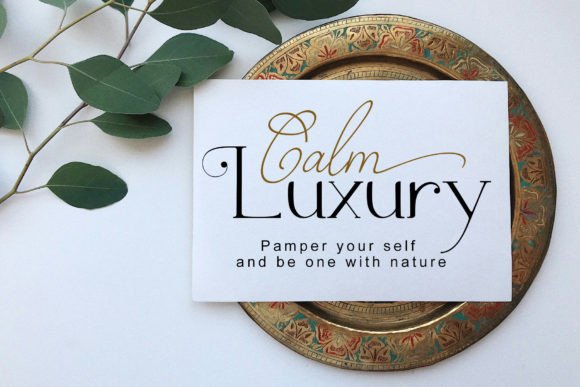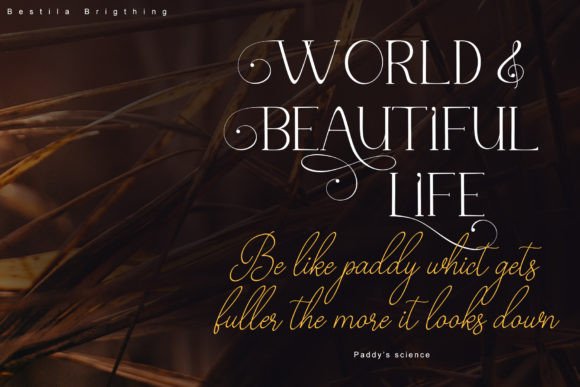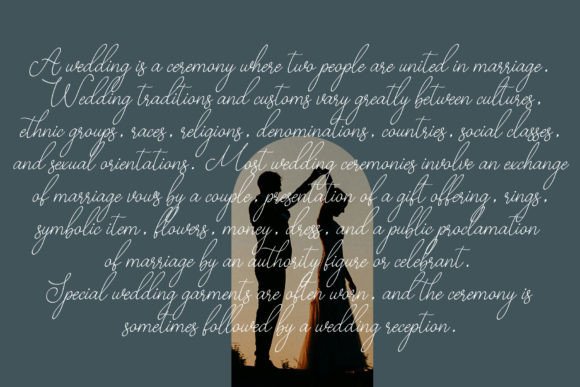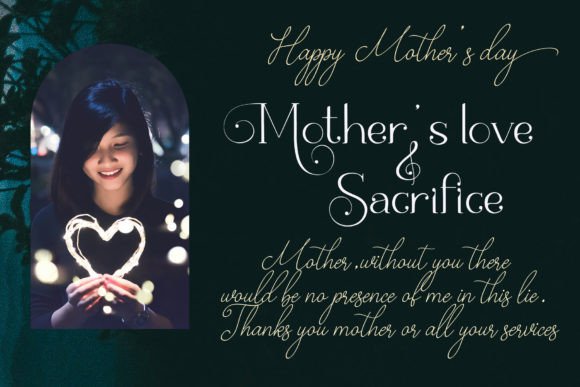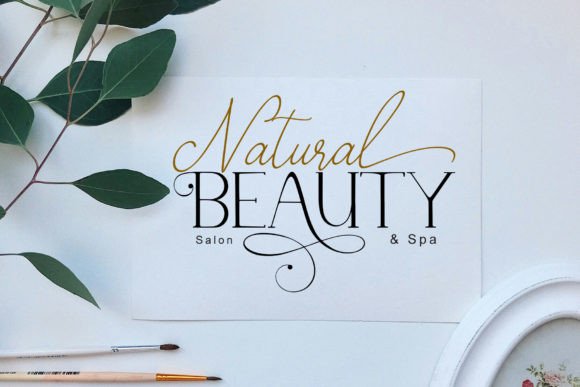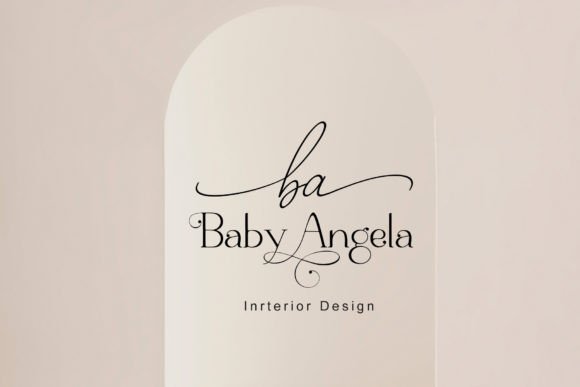
Elevate Your Designs with Bestiela Brigthing: The Ultimate Font Duo
Are you on the hunt for the perfect font to add a touch of elegance and sophistication to your designs? Look no further than Bestiela Brigthing, a stunning duo of fonts that combines the charm of handwritten script with the timeless appeal of classic typefaces. In this article, we’ll dive into the world of Bestiela Brigthing and explore what makes these fonts a must-have for designers, crafters, and anyone looking to elevate their visual creations.
Introducing Bestiela Brigthing-Two: A Perfect Blend of Style and Elegance
Bestiela Brigthing-Two is not just a font; it’s a design experience. This remarkable duo comprises two distinct fonts that, together, offer an unparalleled level of versatility and style. The first font is a beautiful, handwritten script that exudes warmth and personality. Its natural texture and decorative swashes at the beginning and end of lowercase letters add a touch of whimsy and flair to any design. The second font is an elegant typeface that brings a sense of sophistication and luxury to the table. With multiple alternative characters, such as M.1 to M.5, designers have the freedom to experiment and create unique visual identities.
Unleash Your Creativity with Endless Design Possibilities
One of the standout features of Bestiela Brigthing-Two is its incredible versatility. These fonts are perfect for a wide range of design projects, from wedding invitations and greeting cards to logos, branding, and beyond. Whether you’re a professional designer or a crafty DIY enthusiast, Bestiela Brigthing-Two offers the tools you need to bring your vision to life. The fonts’ extensive character set, which includes uppercase and lowercase letters, numbers, punctuation marks, swashes, alternates, ligatures, and support for various languages, ensures that you have everything you need to create stunning designs.
What Sets Bestiela Brigthing-Two Apart?
- Handwritten Charm: The handwritten font features a natural, organic texture that adds a personal touch to your designs.
- Elegant Typeface: The classic typeface offers a sophisticated and luxurious feel, perfect for high-end branding and designs.
- Decorative Swashes: The handwritten font includes decorative swashes at the beginning and end of lowercase letters, adding an extra layer of elegance.
- Multiple Alternative Characters: The elegant typeface offers multiple alternative characters, allowing for endless design possibilities.
Bestiela Brigthing-Two is designed with both designers and crafters in mind. The fonts are incredibly easy to use, with a user-friendly interface that makes it simple to navigate and access the characters you need. Whether you’re creating a professional brand identity or a personal craft project, Bestiela Brigthing-Two offers the perfect combination of style, elegance, and versatility.
Why Choose Bestiela Brigthing-Two?
In a world where design trends come and go, Bestiela Brigthing-Two stands the test of time. These fonts are not just a passing fad; they’re a timeless investment in your design future. With Bestiela Brigthing-Two, you can:
- Create stunning, professional-grade designs that elevate your brand or personal style.
- Stand out from the crowd with unique and eye-catching typography.
Bestiela Brigthing-Two is more than just a font duo; it’s a design experience that will elevate your creations to new heights. With its perfect blend of handwritten charm and classic typeface elegance, this stunning duo offers endless design possibilities for professionals and hobbyists alike. Whether you’re looking to create a lasting impression with your brand identity or add a personal touch to your craft projects, Bestiela Brigthing-Two is the perfect choice. So why wait? Discover the power of Bestiela Brigthing-Two today and take your designs to the next level!